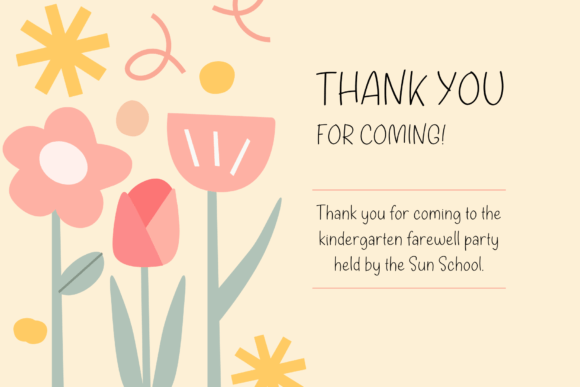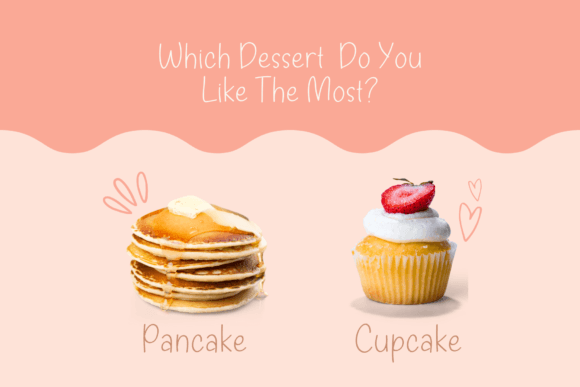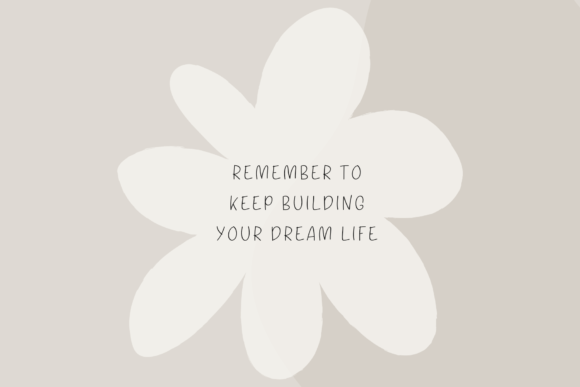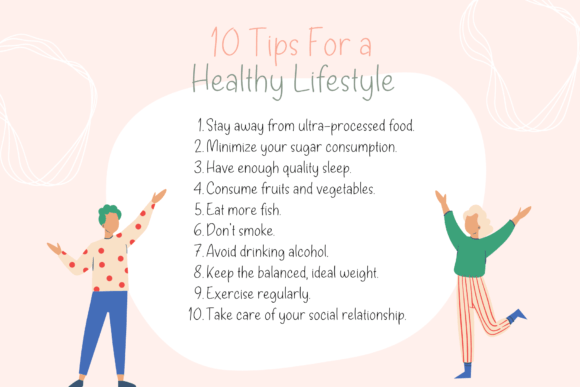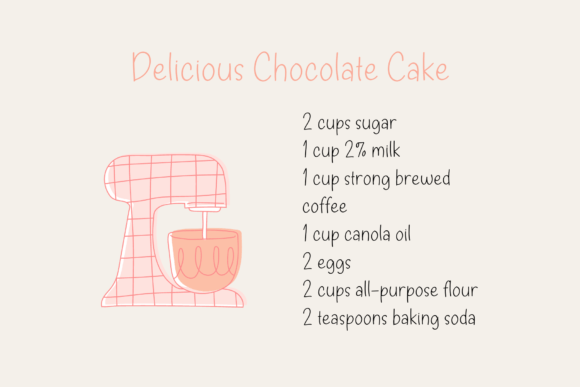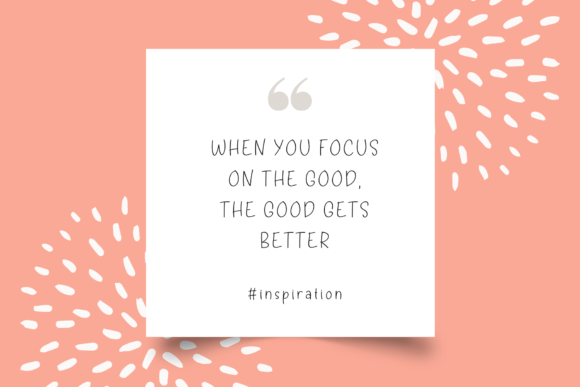
Introduction to Mayo and Mustard Font
Mayo and Mustard is a delicate handwritten font.
You can use it to jazz up your digital planner, journal, invitations, note-taking, or anything that requires a handwriting look .